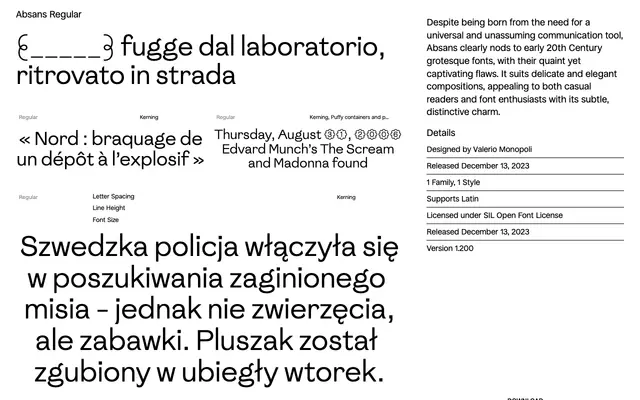
Absans Regular
Collletttivo · Valerio Monopoli · 2023
A single-weight grotesque by Valerio Monopoli that draws quietly on early 20th-century European type conventions, released under the SIL Open Font License.
Designed by Valerio Monopoli and released in December 2023, the typeface carries the low-key irregularities characteristic of pre-war grotesques without leaning into pastiche. Available in one weight only, it suits restrained editorial and typographic compositions where a hint of historical character is wanted without overt decoration. Freely downloadable under the SIL Open Font License with broad Latin Extended coverage.
A single-weight grotesque sans with deliberate nods to early 20th-century grotesque conventions, including subtle irregularities that recall pre-war European type. Collletttivo describe it as born from the need for a universal communication tool.